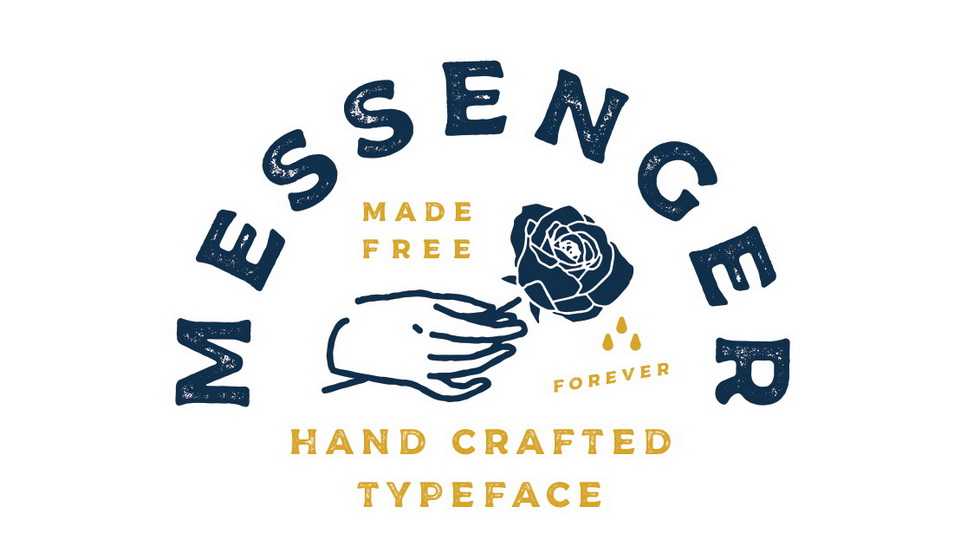
Download Messenger typeface, a display font family in tree styles inspired by vintage packaging. With it’s unique and distinct characteristics Messenger sets itself apart, while also maintaining a strong timeless appeal overall.